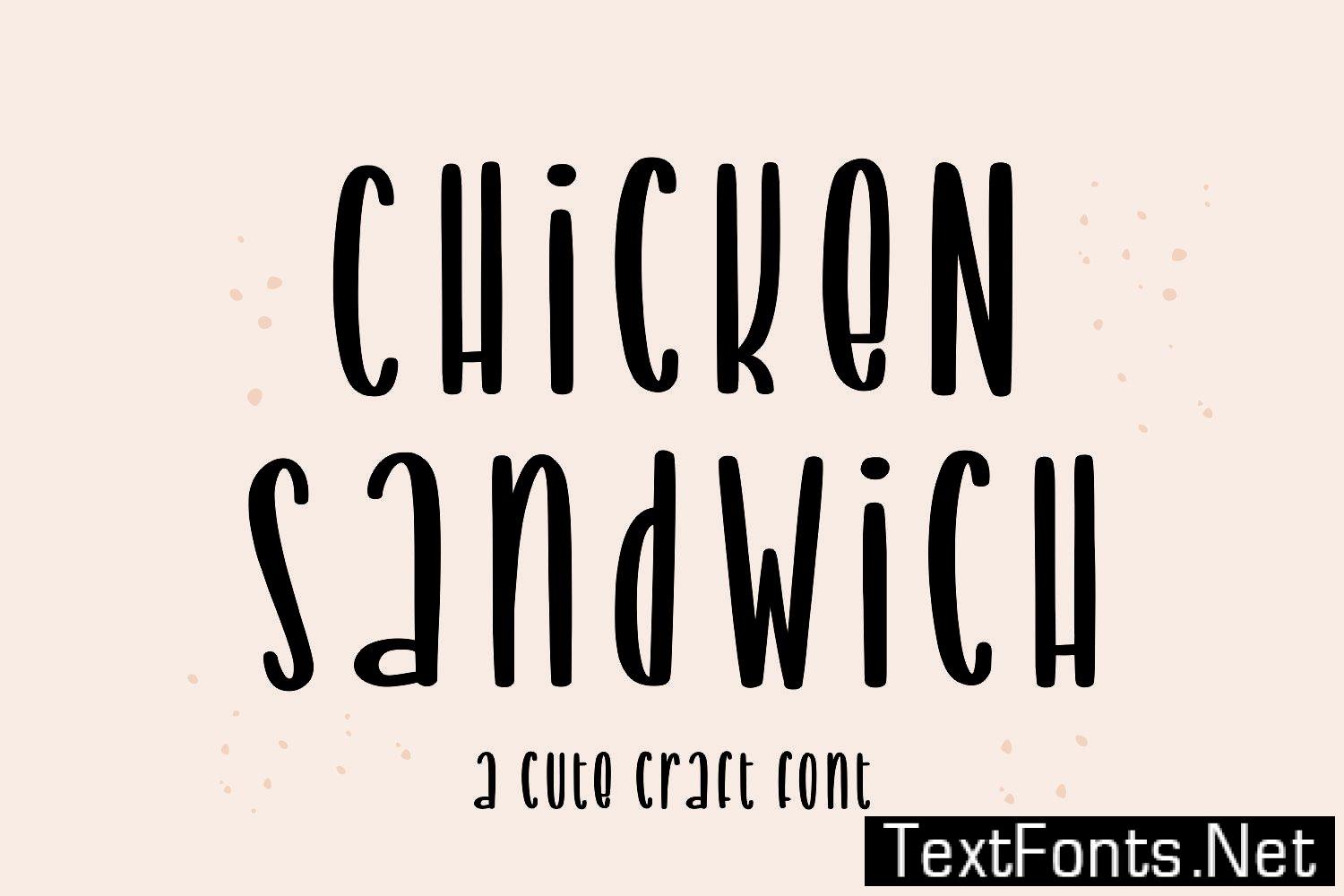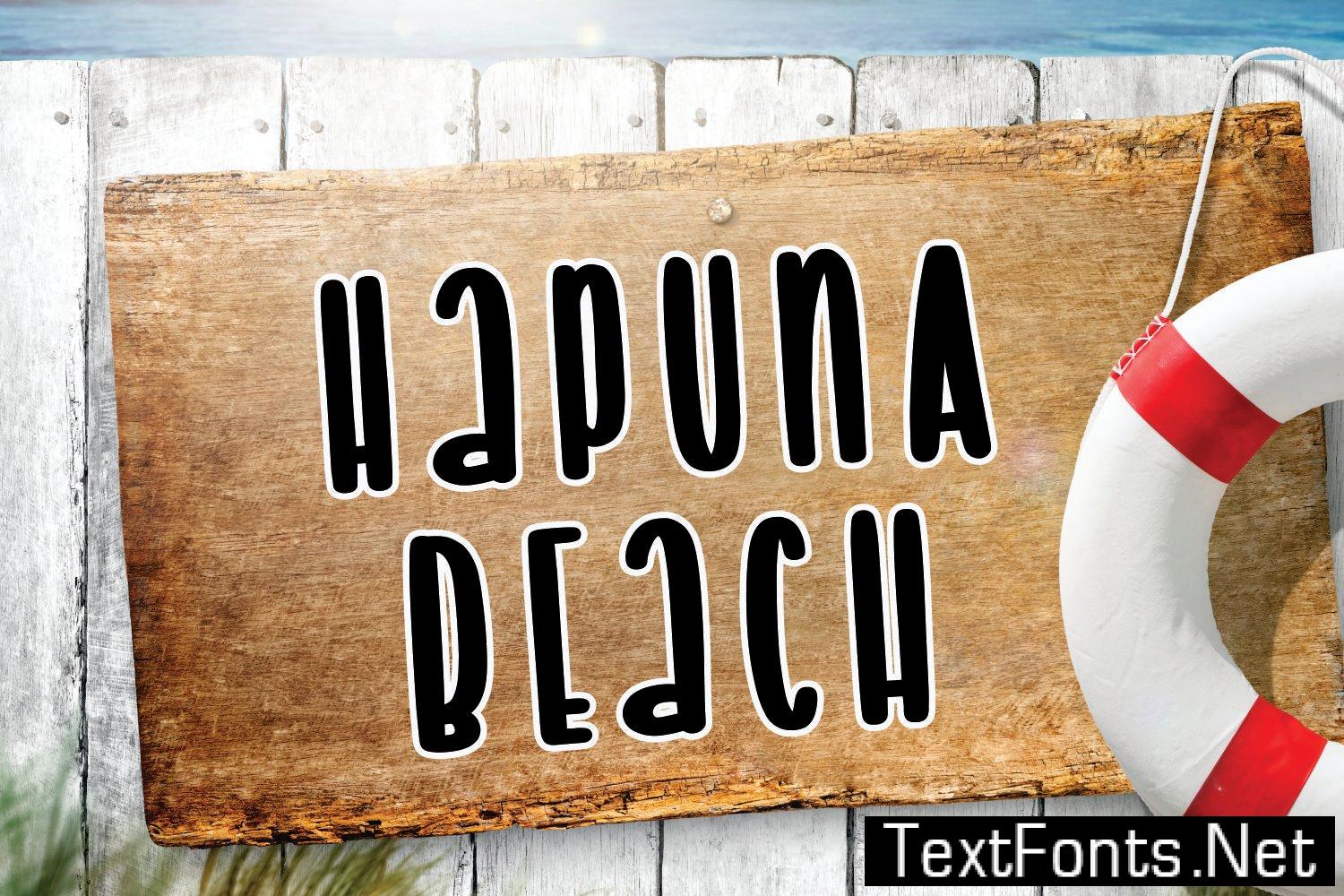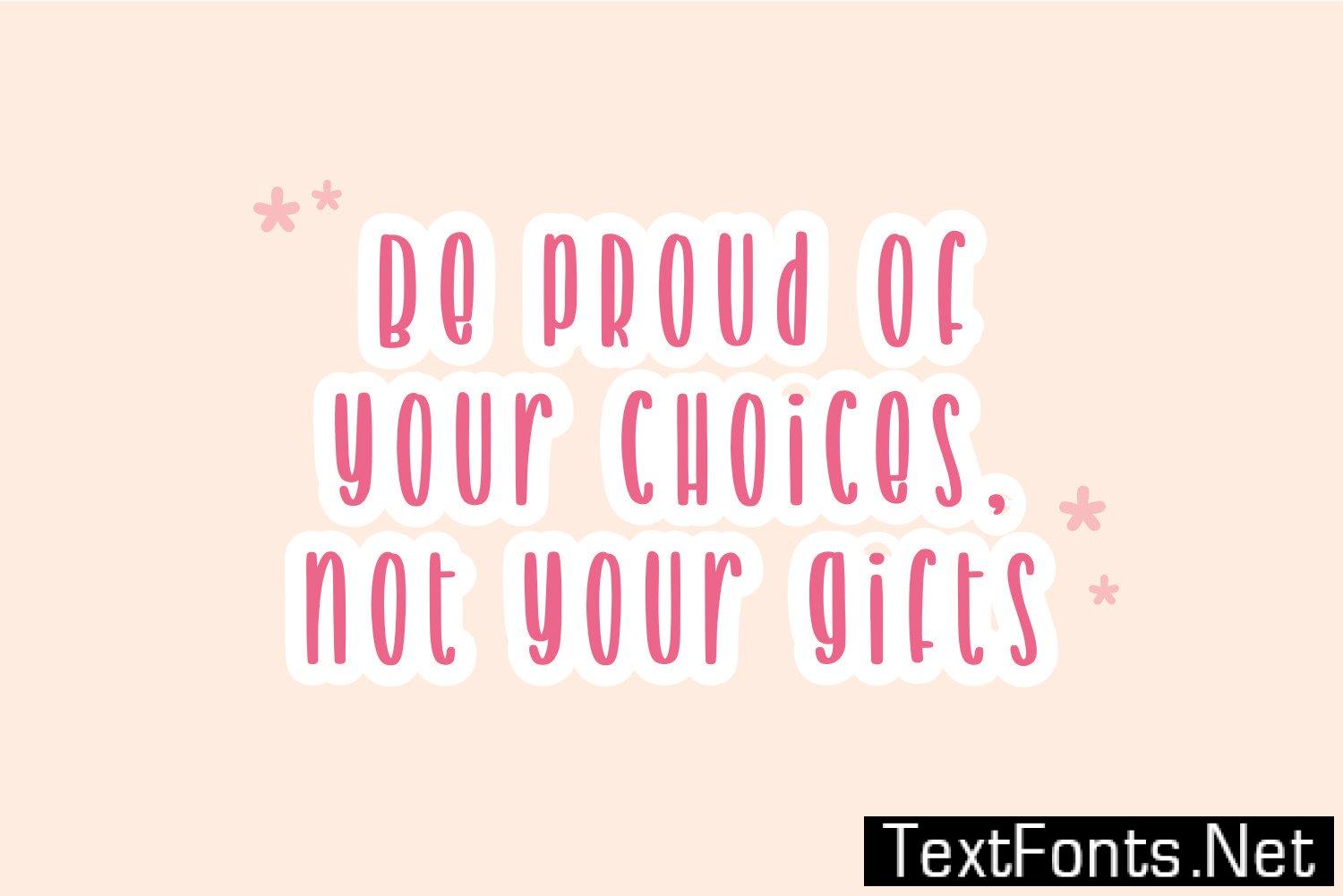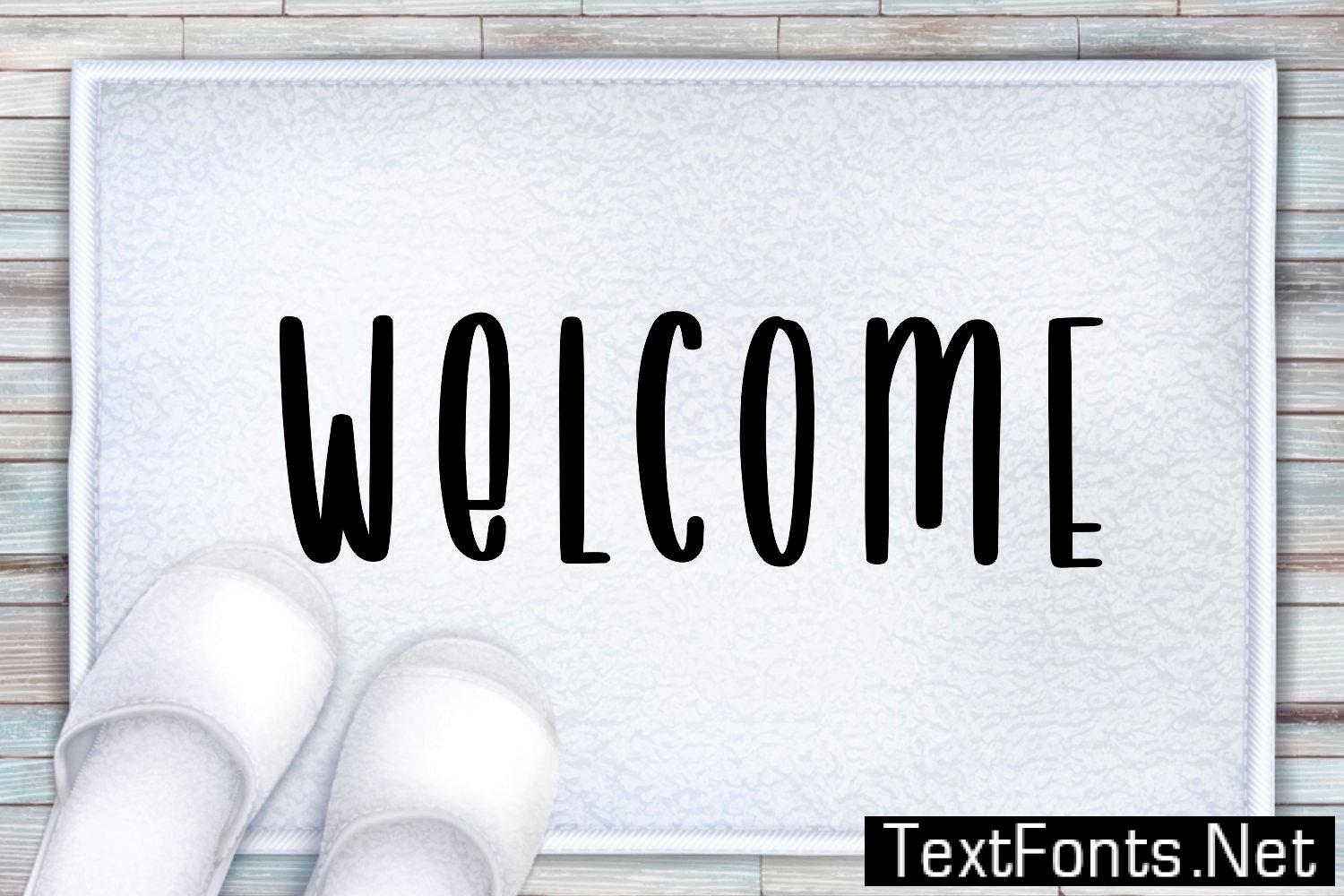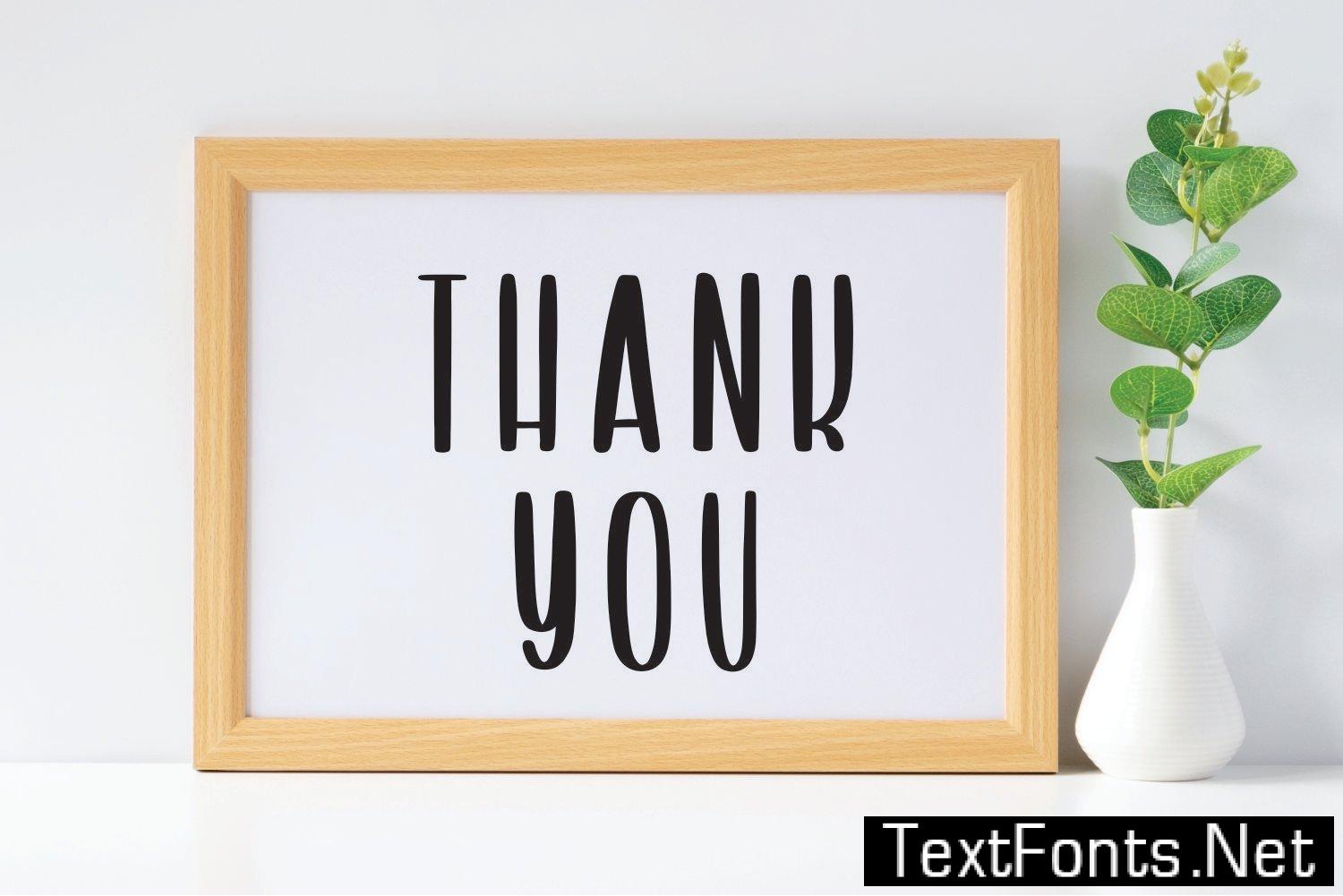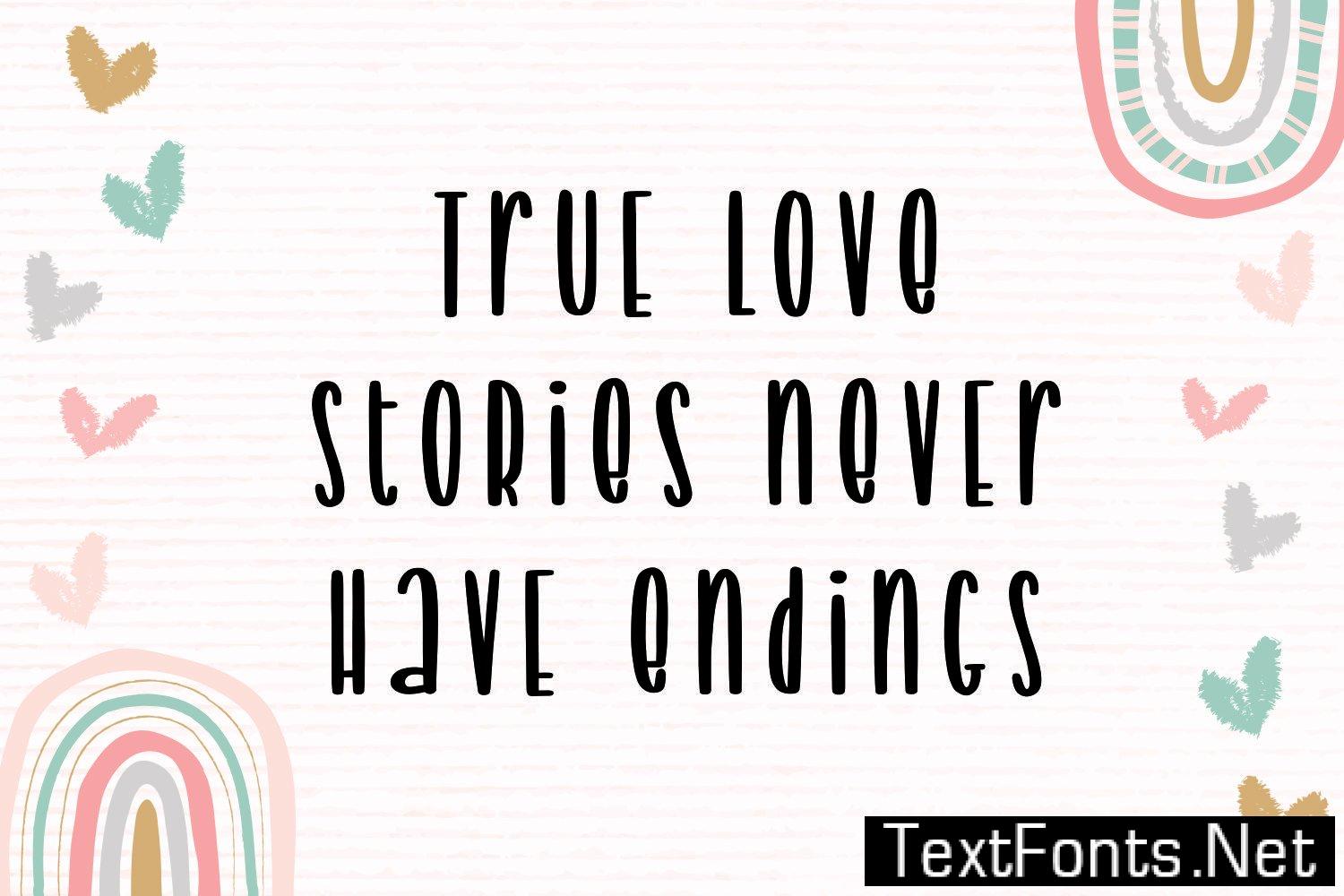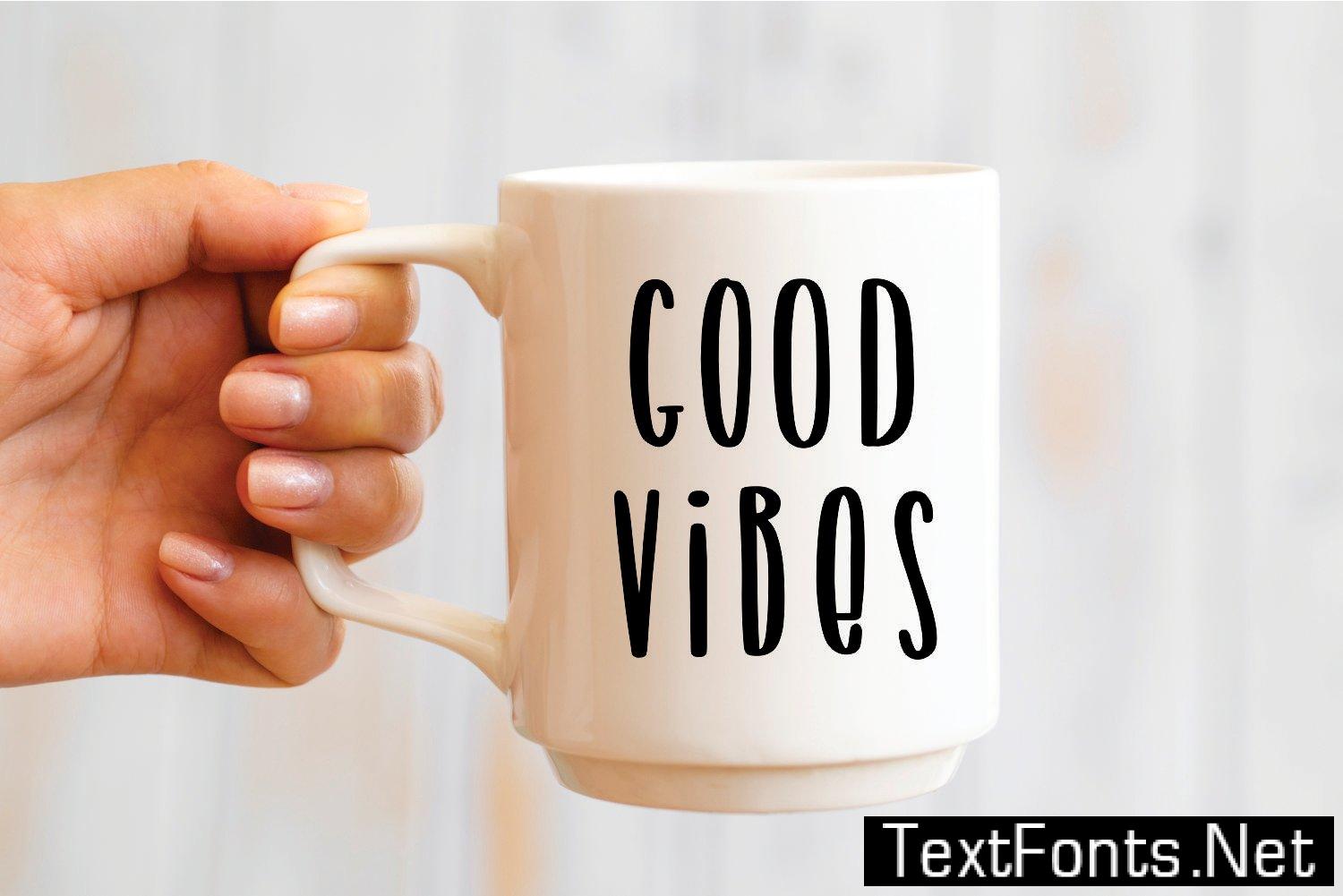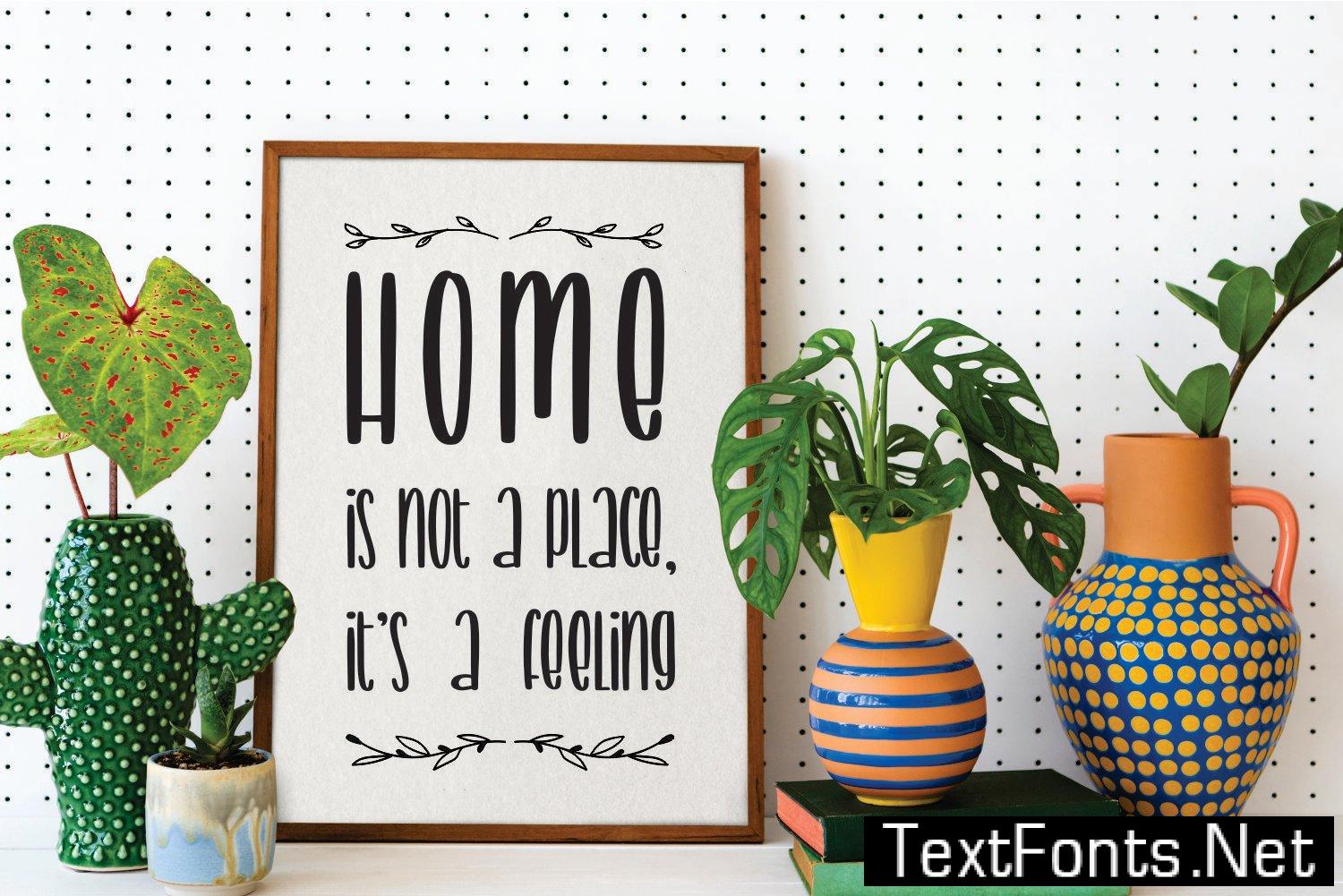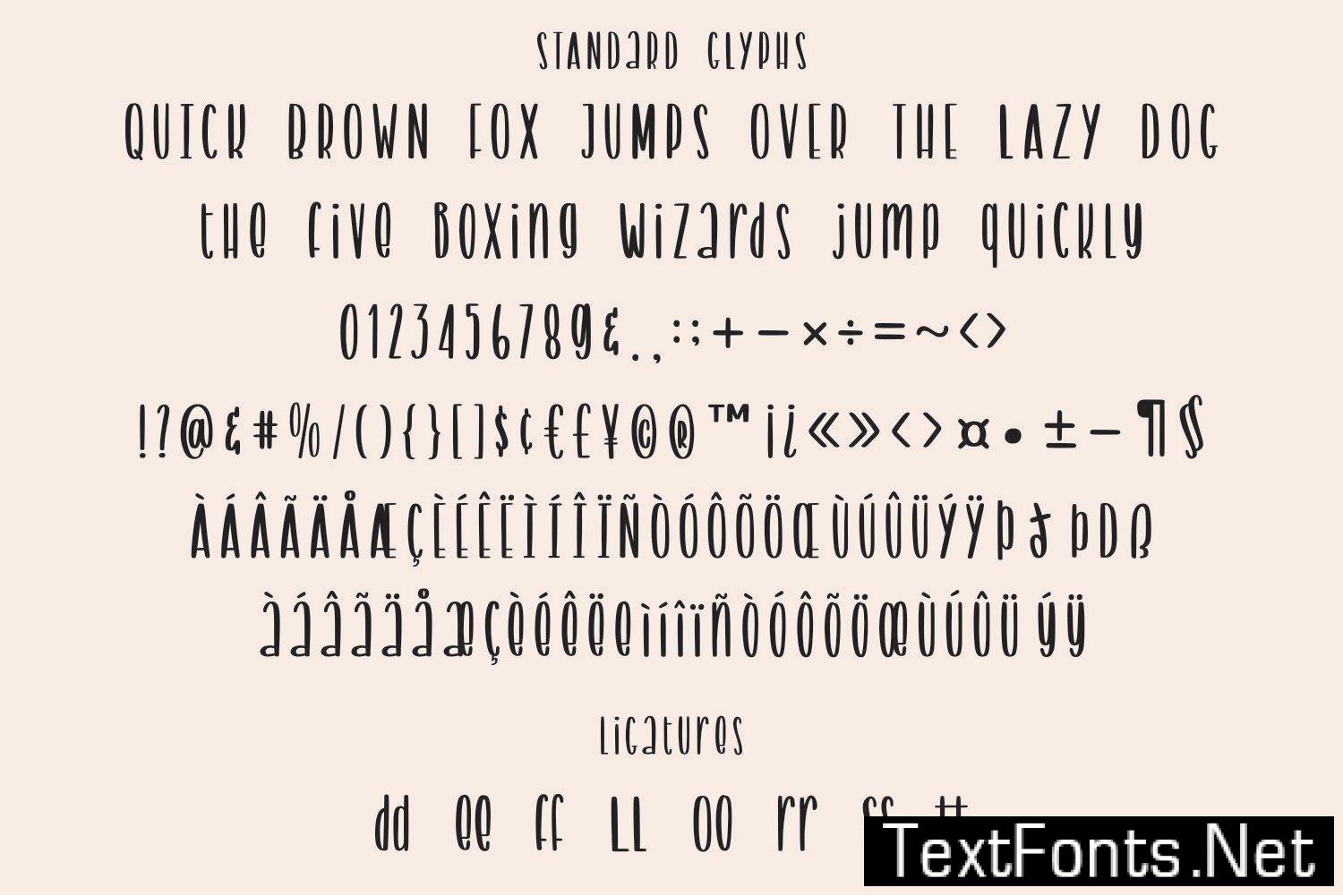
Unveil the charm of Chicken Sandwich, a cute and fun display font designed to bring joy to all your creative projects! Perfect for food-themed designs, children’s writing, and playful crafts, this font exudes a delightful and whimsical vibe. Whether you’re working on Easter decorations, Thanksgiving cards, or Christmas crafts, Chicken Sandwich will add a unique and cheerful touch to your creations. Ideal for Cricut, embroidery, and SVG projects, this font is your go-to for all things fun and festive.
Imagine the endless possibilities with Chicken Sandwich! Its adorable and friendly characters are perfect for adding a special flair to your lettering and DIY projects. Create charming holiday ornaments, personalized gifts, and standout decorations that will impress everyone. This versatile font is a must-have for anyone looking to infuse their designs with a dose of cuteness and creativity.